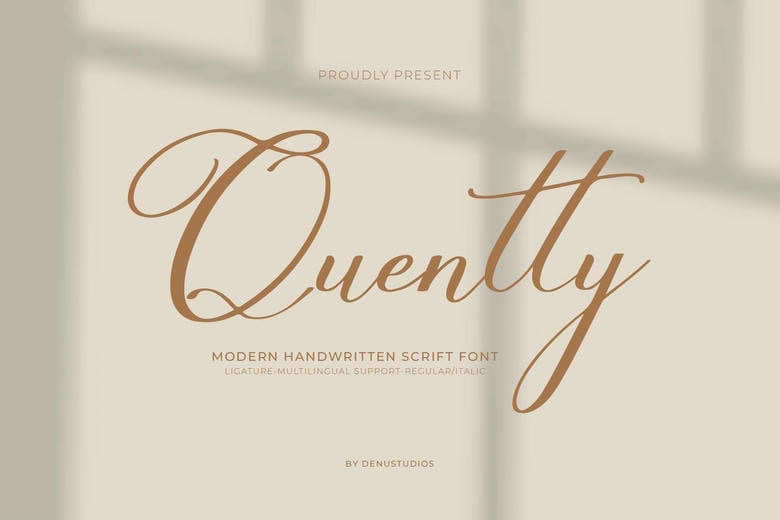
Quentty Font
Quentty is a stylish script font. Having a handwritten style, it is excellent for crafting designs that are personal, creative, or fancy. Its comfortable curves and soft shapes boost readability and contribute elegance to any project. Ideal either for logos, invitations, or for decorative text.
Quentty Handwritten Script Font